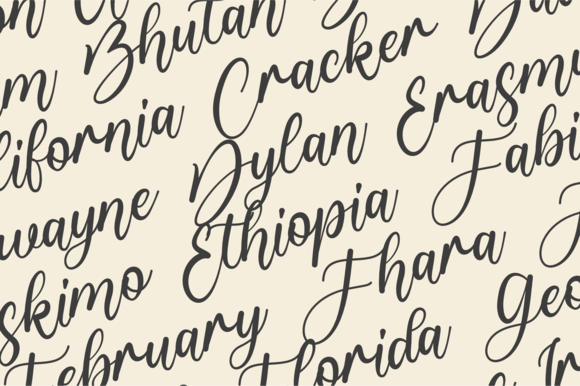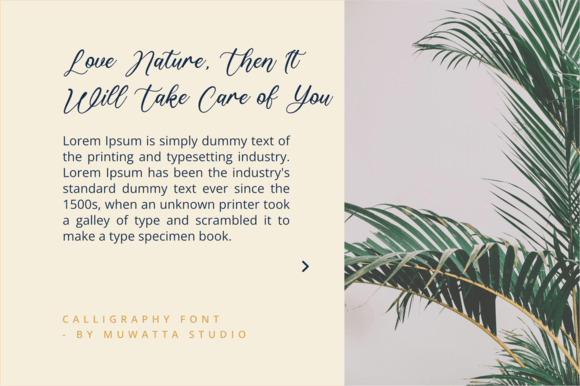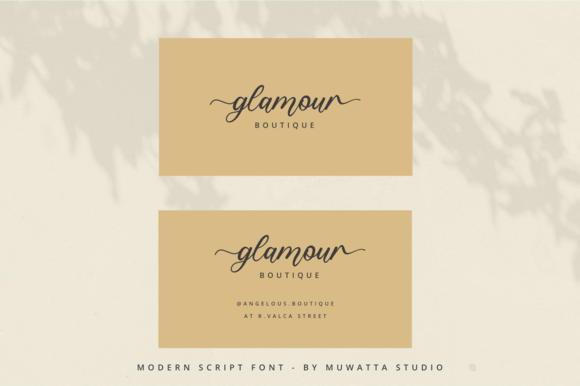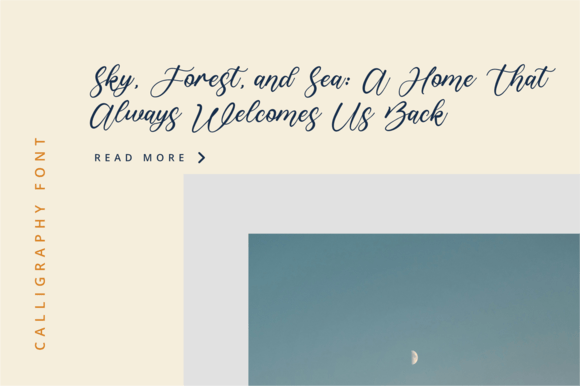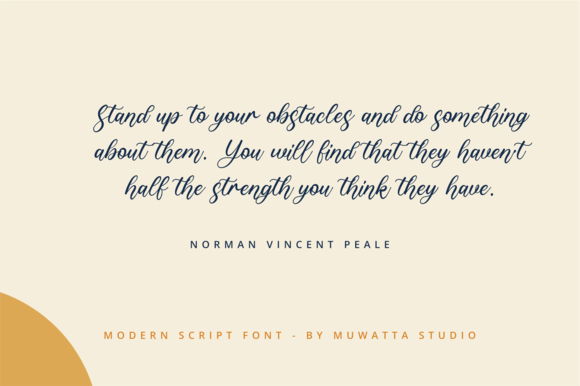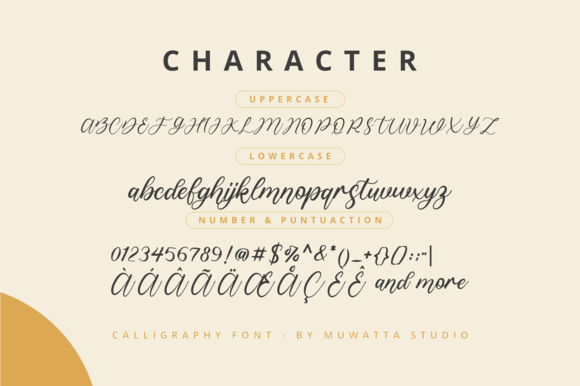
Hello Fresh Font: A Charming Script Font for Elegant Designs
Hello Fresh is a captivating script font that has taken the design world by storm with its unique and elegant design. This font is perfect for projects that aim to convey a romantic aesthetic, making it a popular choice among designers and crafters. In this article, we’ll dive into the features and characteristics of the Hello Fresh font, and explore its uses and benefits.
Aesthetic Appeal of Hello Fresh Font
The Hello Fresh script font boasts a charming and sophisticated design that exudes a sense of elegance and refinement. Its gracefully flowing lines and carefully crafted curves give each character a sense of organic fluidity, making it a joy to behold. The letterforms are highly detailed, with subtle strokes and swirls that add a touch of playfulness and femininity to the font.
The overall font design evokes a feeling of handcrafted beauty, reminiscent of handwritten calligraphy. This unique blend of elegance and playfulness makes Hello Fresh a versatile font that can be used in a wide range of design projects, from wedding invitations and branding materials to packaging and advertising.
Key Features of Hello Fresh Font
- Unique and Elegant Design: Hello Fresh font features a distinctive and refined design that sets it apart from other script fonts.
- Flowing Lines and Curves: The font’s gracefully flowing lines and carefully crafted curves give each character a sense of organic fluidity.
- Highly Detailed Letterforms: The letterforms are highly detailed, with subtle strokes and swirls that add a touch of playfulness and femininity.
- Handcrafted Beauty: The font design evokes a feeling of handcrafted beauty, reminiscent of handwritten calligraphy.
Uses of Hello Fresh Font
Hello Fresh font is perfect for a wide range of design projects, including:
- Wedding Invitations: The font’s elegant and romantic design makes it perfect for wedding invitations, save-the-date cards, and other wedding-related materials.
- Branding and Packaging: Hello Fresh font can be used in branding and packaging design to add a touch of elegance and sophistication.
- Advertising and Marketing: The font’s unique and eye-catching design makes it perfect for advertising and marketing materials, such as brochures, flyers, and social media graphics.
- Stationery and Gift Tags: Hello Fresh font can be used to create beautiful stationery, gift tags, and other paper crafts.
Benefits of Using Hello Fresh Font
Using Hello Fresh font in your design projects offers several benefits, including:
- Unique and Memorable Design: The font’s unique and elegant design will help your project stand out and leave a lasting impression.
- Versatility: Hello Fresh font can be used in a wide range of design projects, from wedding invitations to branding and advertising.
- High-Quality Design: The font is designed with high-quality and attention to detail, ensuring that your project looks professional and polished.
| Font Name | Hello Fresh Font |
| Author | Muwatta Studio |
Hello Fresh font is a charming script font that is perfect for designers and crafters looking to add a touch of elegance and sophistication to their projects. Its unique and elegant design, flowing lines and curves, and highly detailed letterforms make it a versatile font that can be used in a wide range of design projects. Whether you’re creating wedding invitations, branding materials, or advertising and marketing materials, Hello Fresh font is a great choice.
- What is Hello Fresh font? Hello Fresh font is a charming script font that features a unique and elegant design.
- What is Hello Fresh font used for? Hello Fresh font can be used in a wide range of design projects, including wedding invitations, branding and packaging, advertising and marketing, and stationery and gift tags.